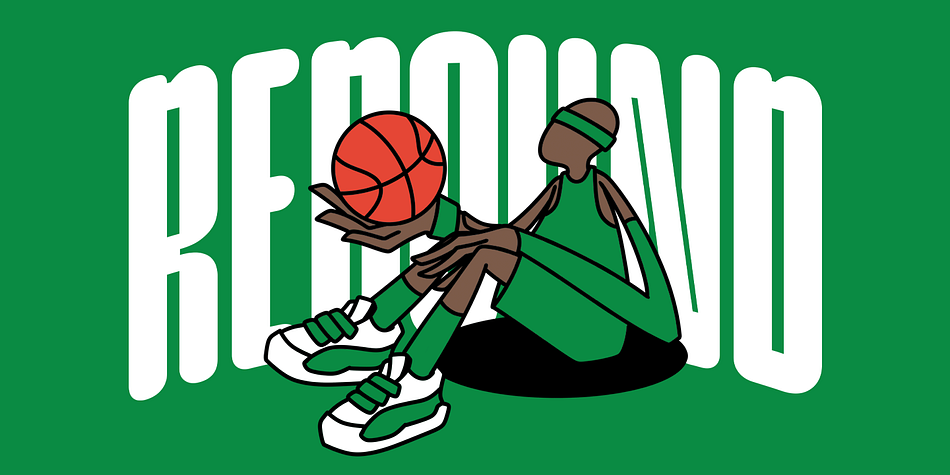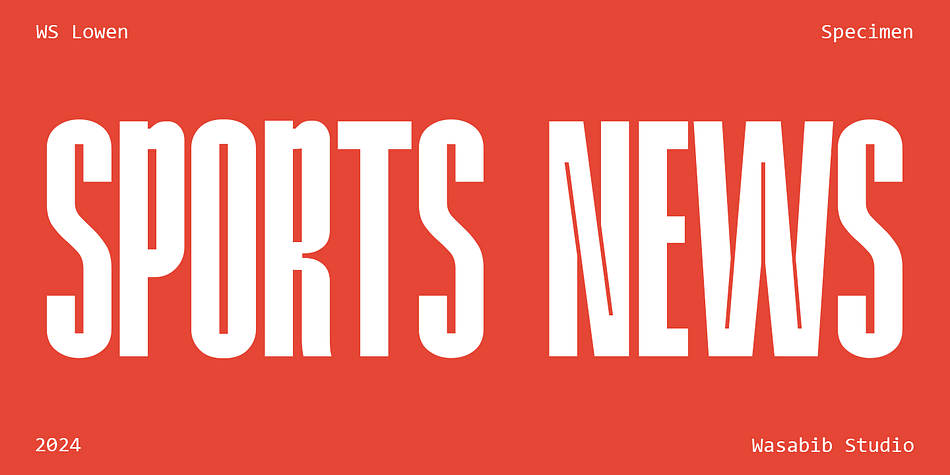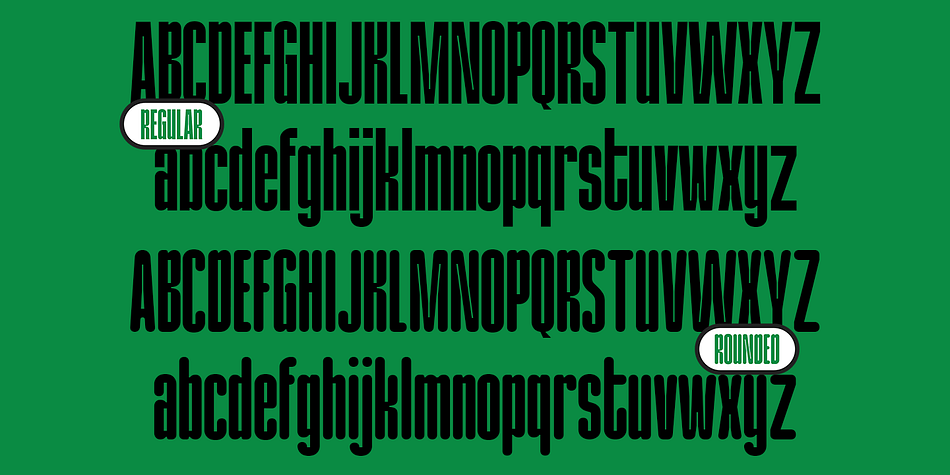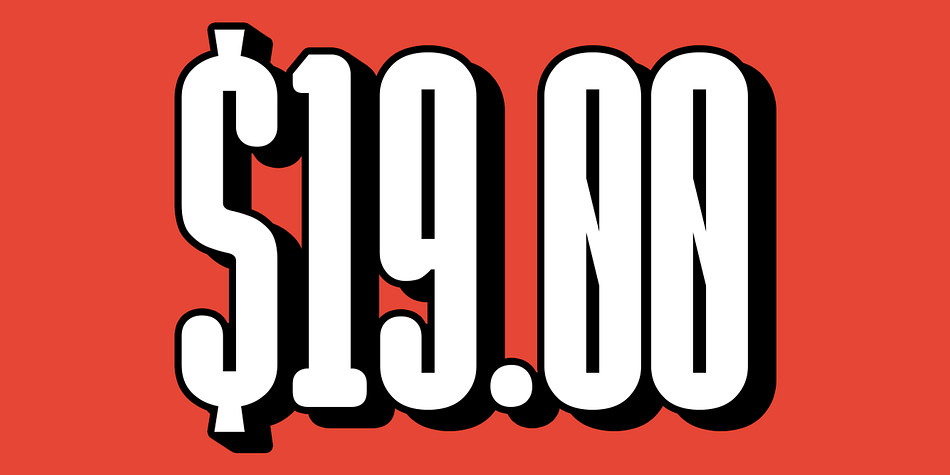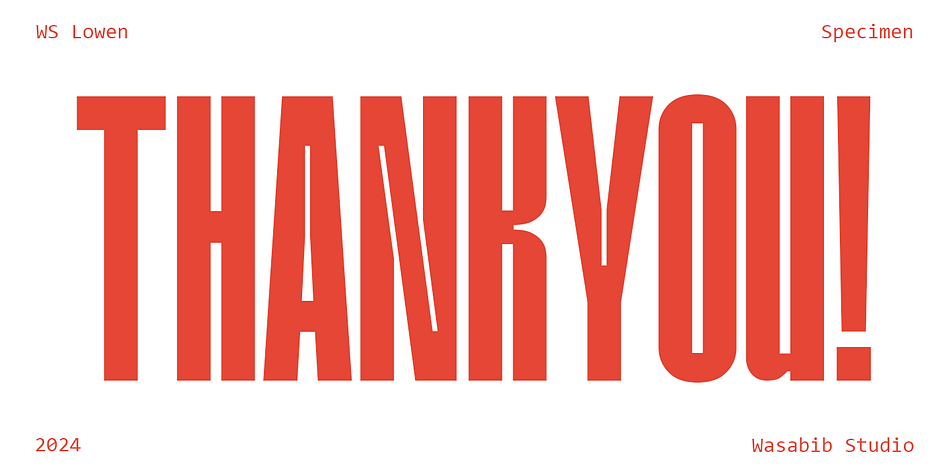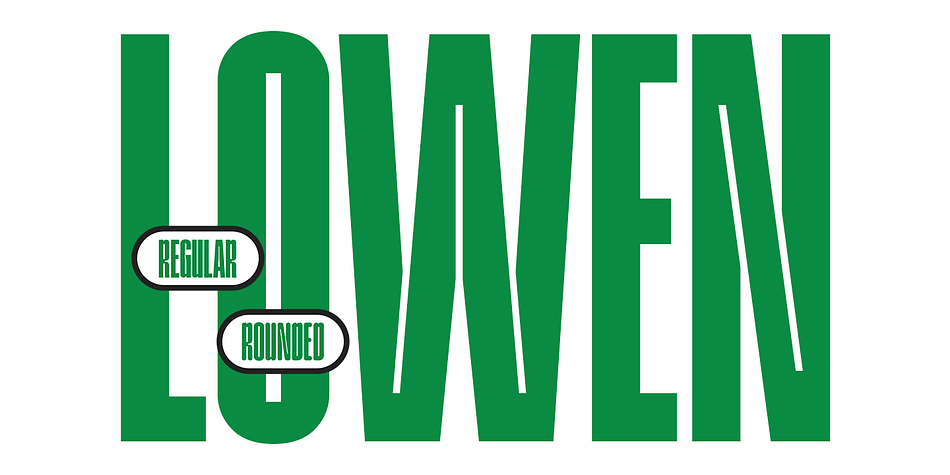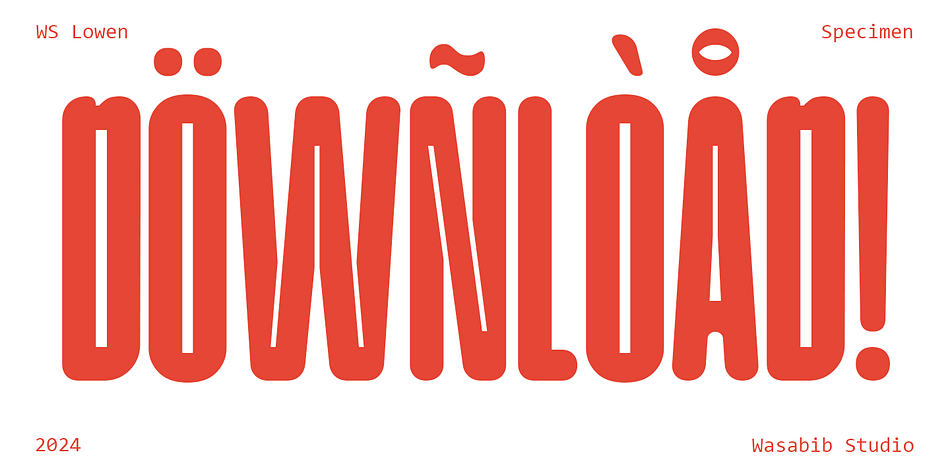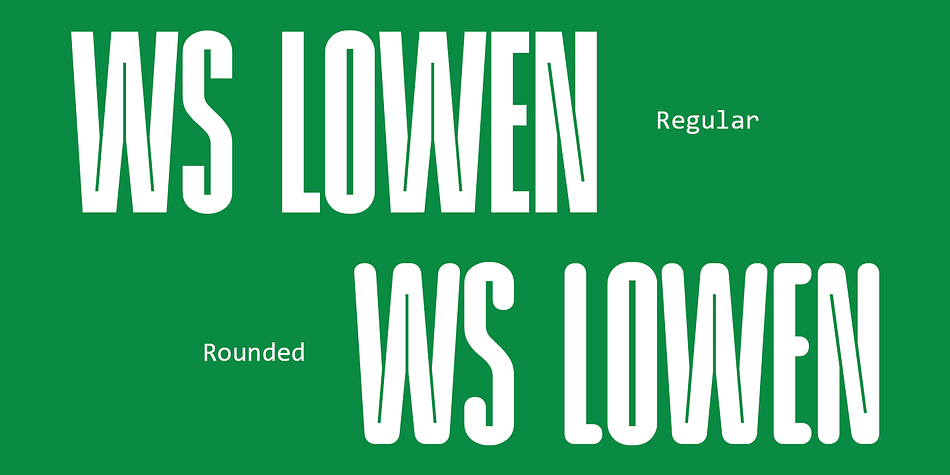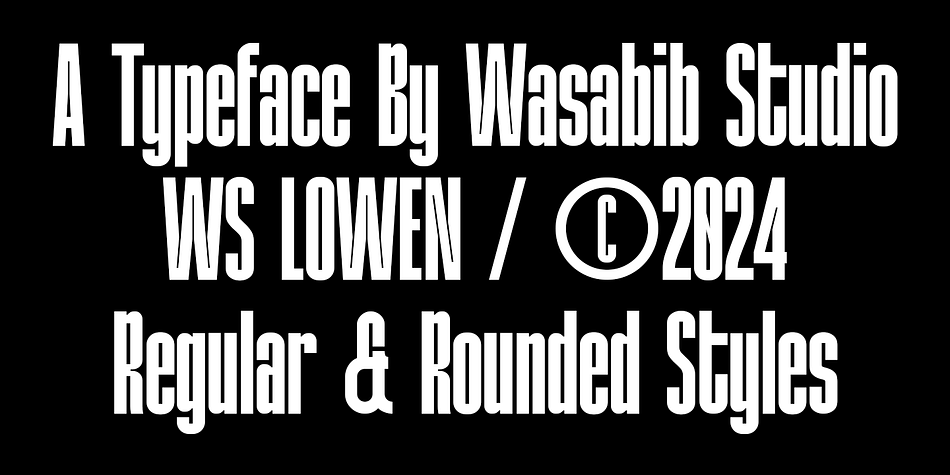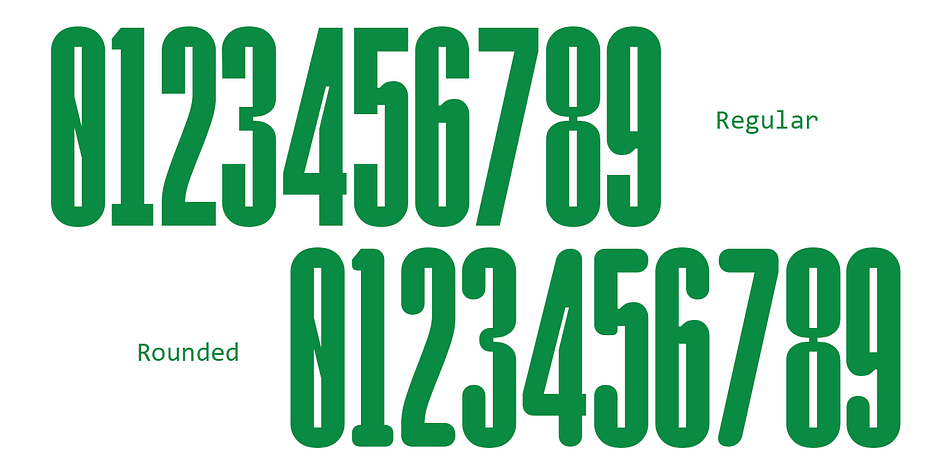
WS Lowen
Designed by Miftahul Habib, WS Lowen is a sans serif font family. This typeface has two styles and was published by Wasabib Type Foundry.
WS Lowen is a modern display typeface that is available in two styles: regular and rounded. The font is designed to be attention-grabbing and impactful, making it ideal for the display typeface category, where the primary goal is to get noticed.
Both styles of WS Lowen feature a modern, clean design that is legible and effective at grabbing attention. The font’s sharp lines, well-defined letterforms, and ample negative space ensure excellent readability, even at smaller sizes. The two styles offer versatility in design applications, allowing designers to choose between the bold and sleek aesthetic of the regular style or the playful and approachable feel of the rounded style.
Overall, WS Lowen is an excellent choice for designers looking for a modern and versatile display font. With two unique styles to choose from, designers can choose a look that aligns with their design goals while relying on the font’s boldness and legibility to make a striking visual impact.